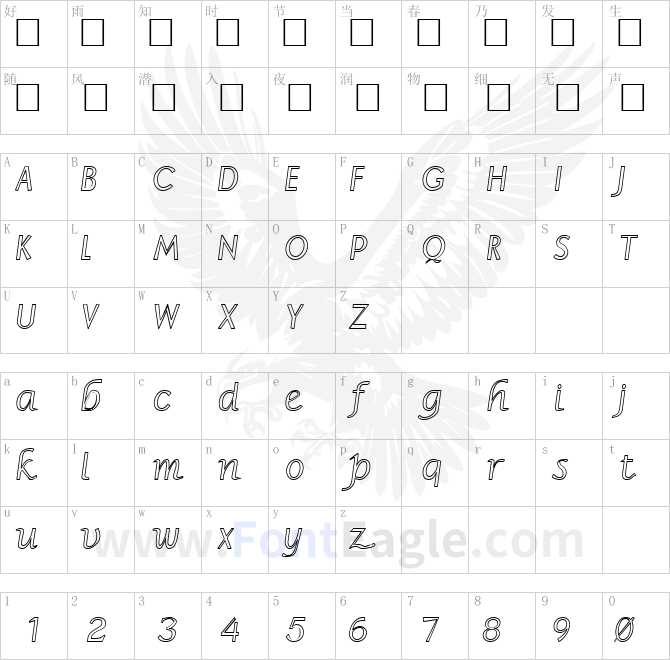
- Font name:FZ BASIC 15 HOLLOW
- Font Subfamily ID:Alts:FZ BASIC 15 HOLLOW
- Font Full Name:FZ BASIC 15 HOLLOW
- Font Version:1.0 Mon Feb 07 00:12:07 1994
- Postscript:FZ-BASIC15HOLLOW